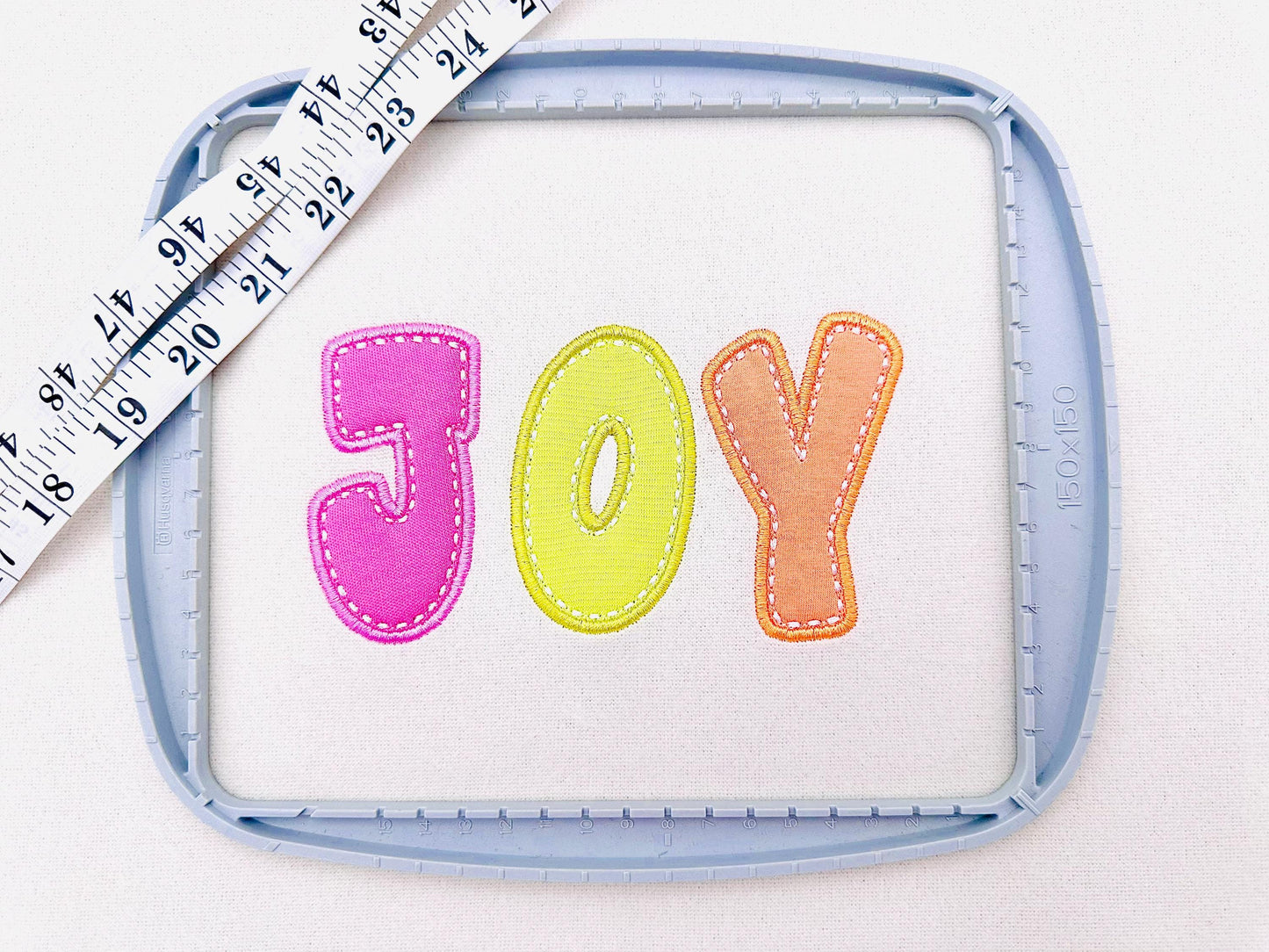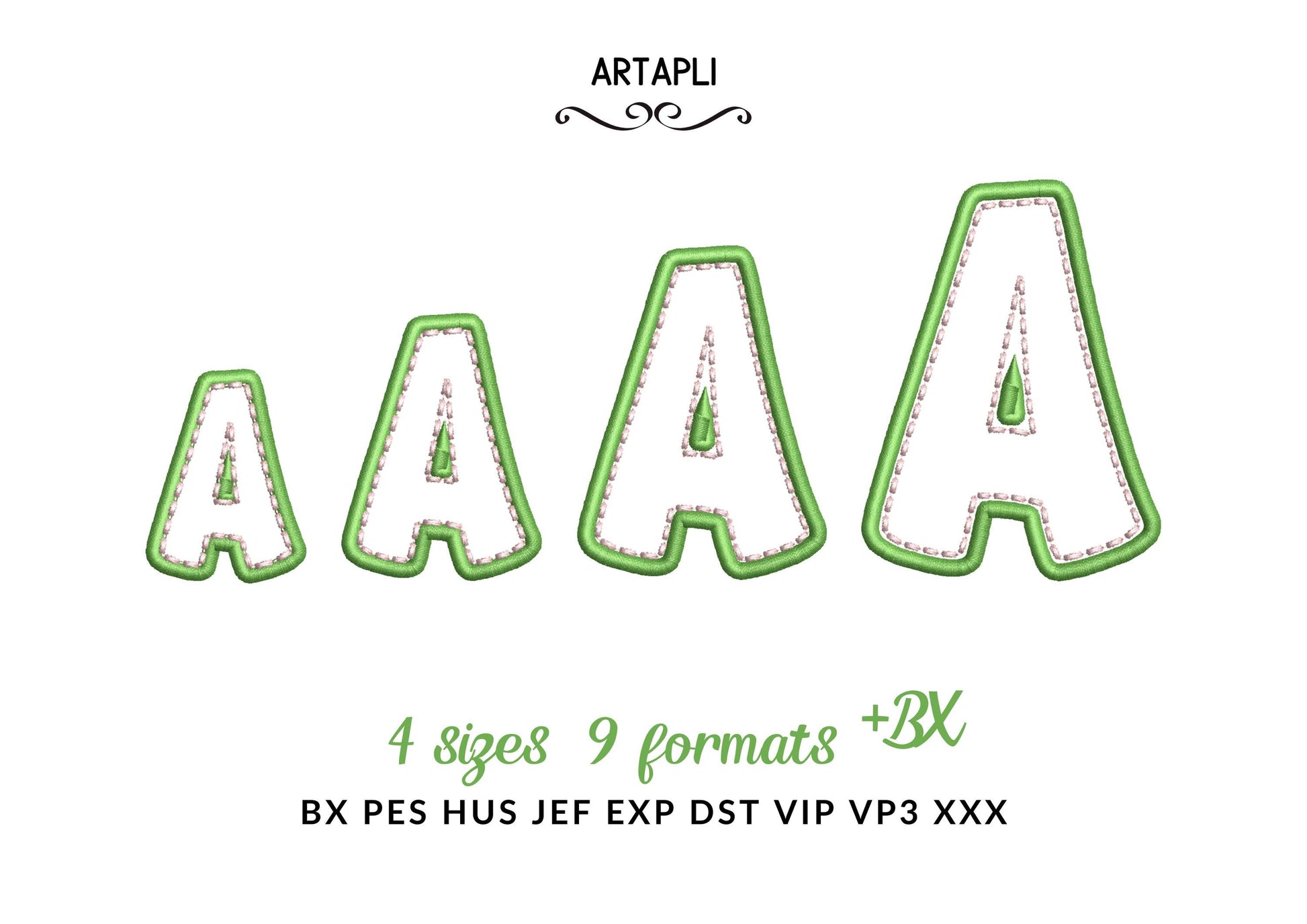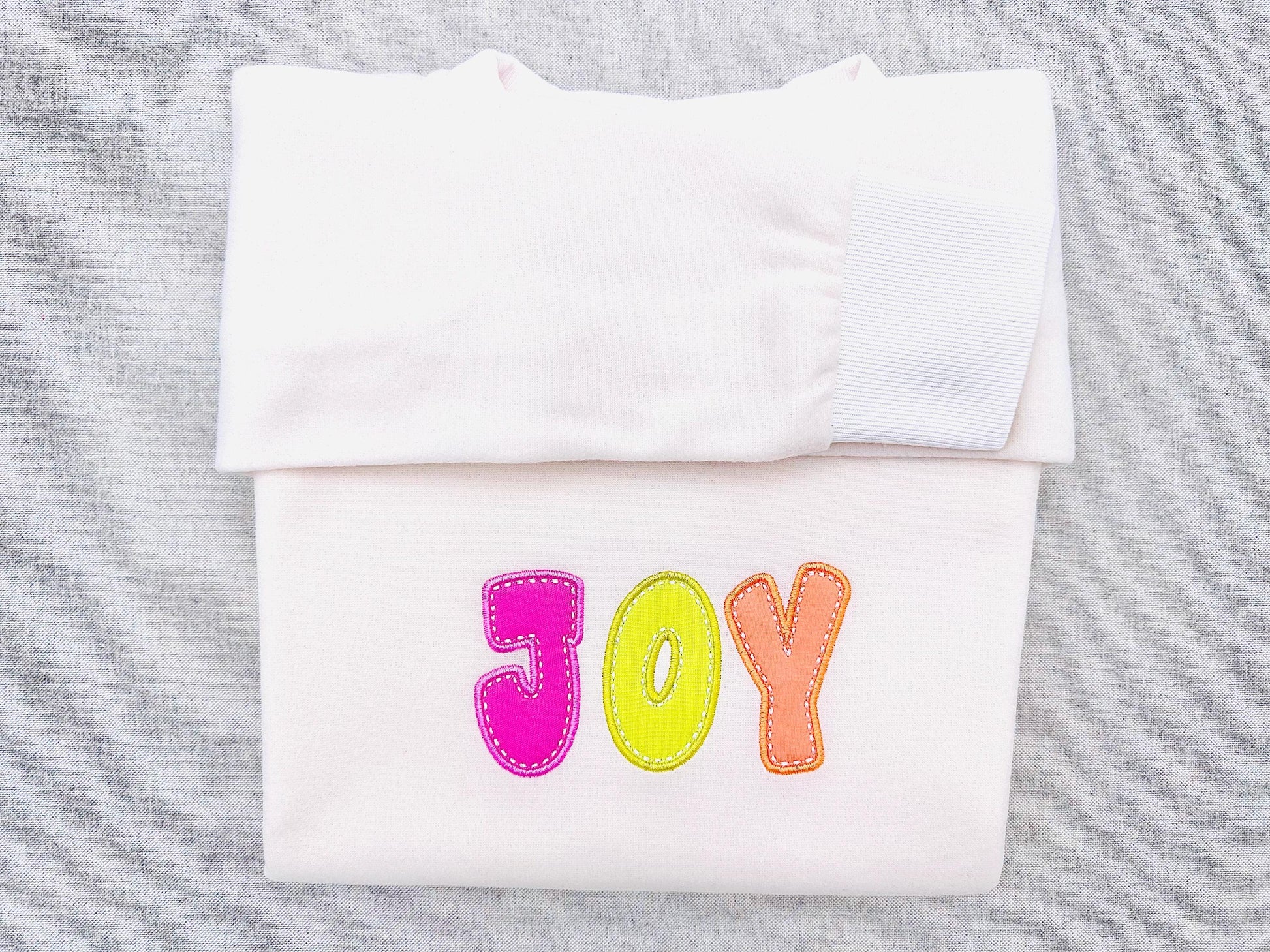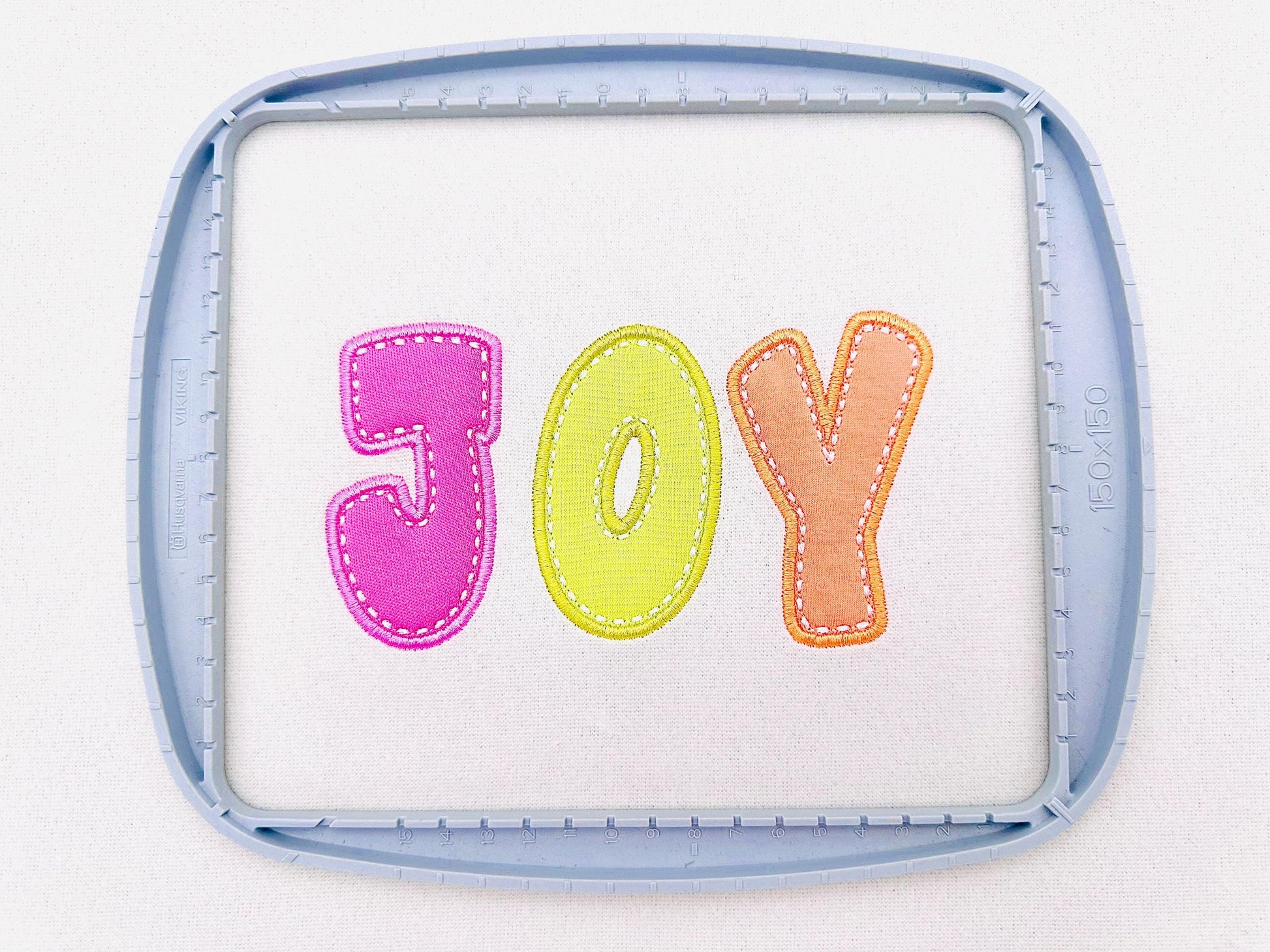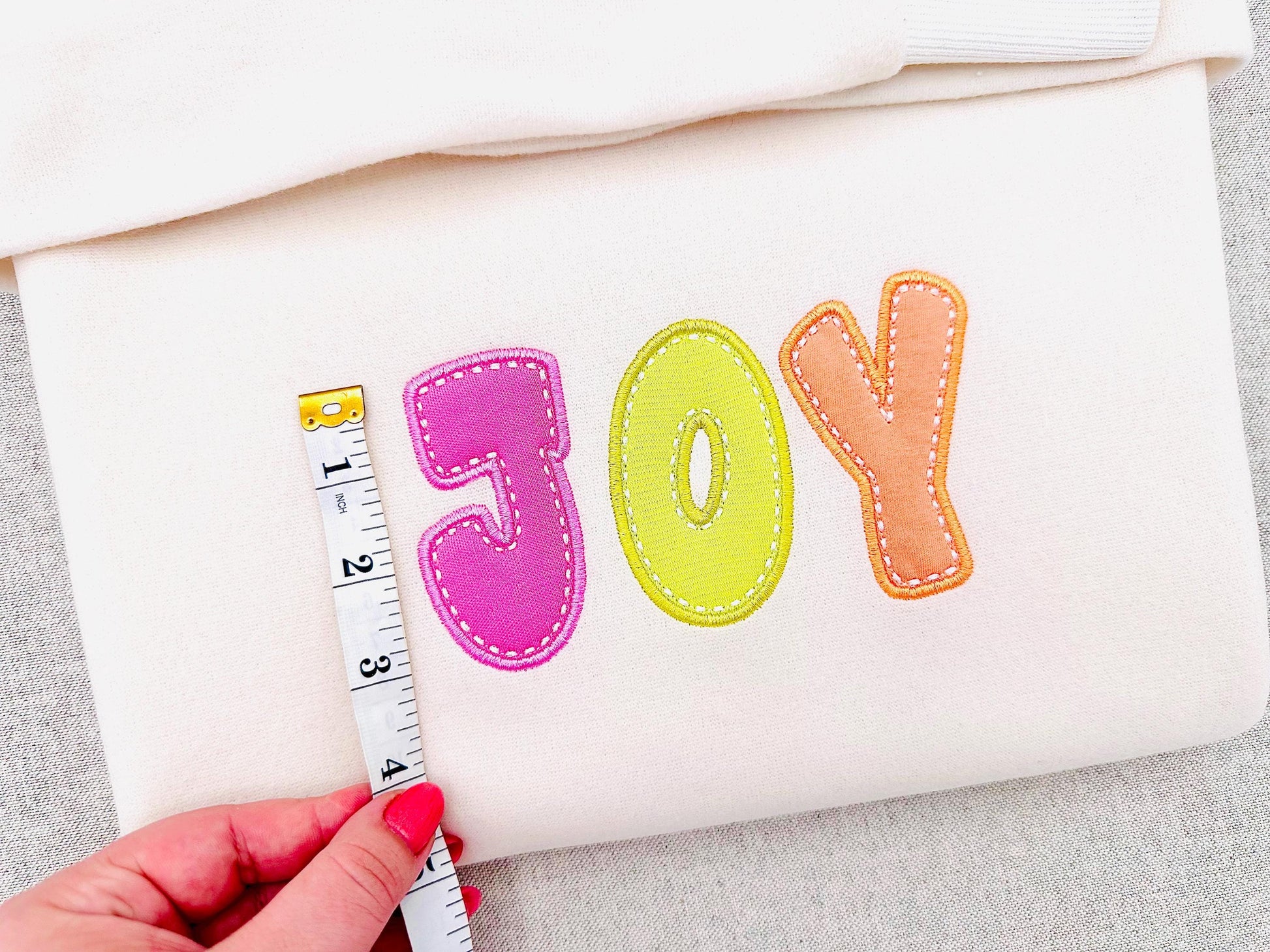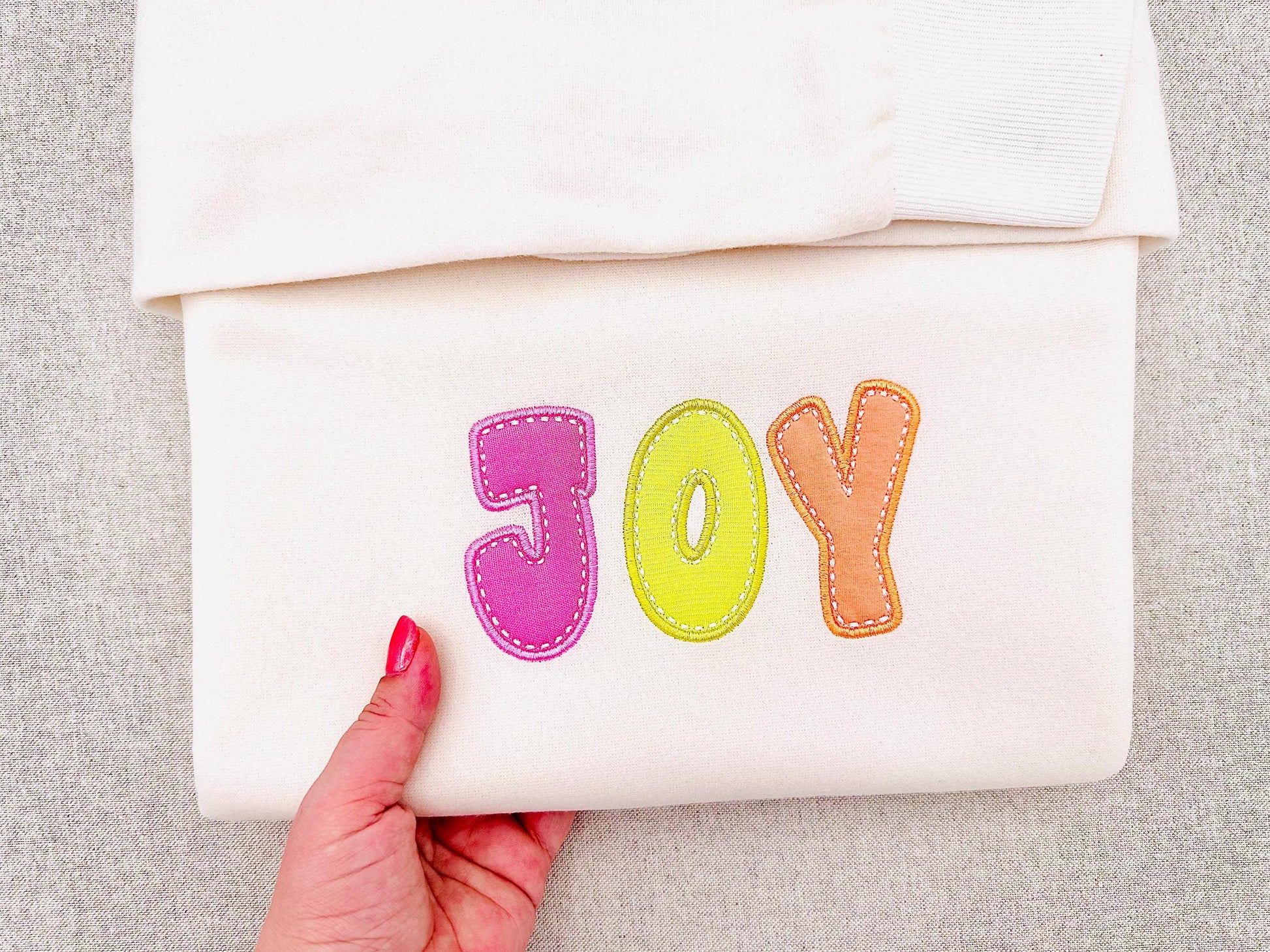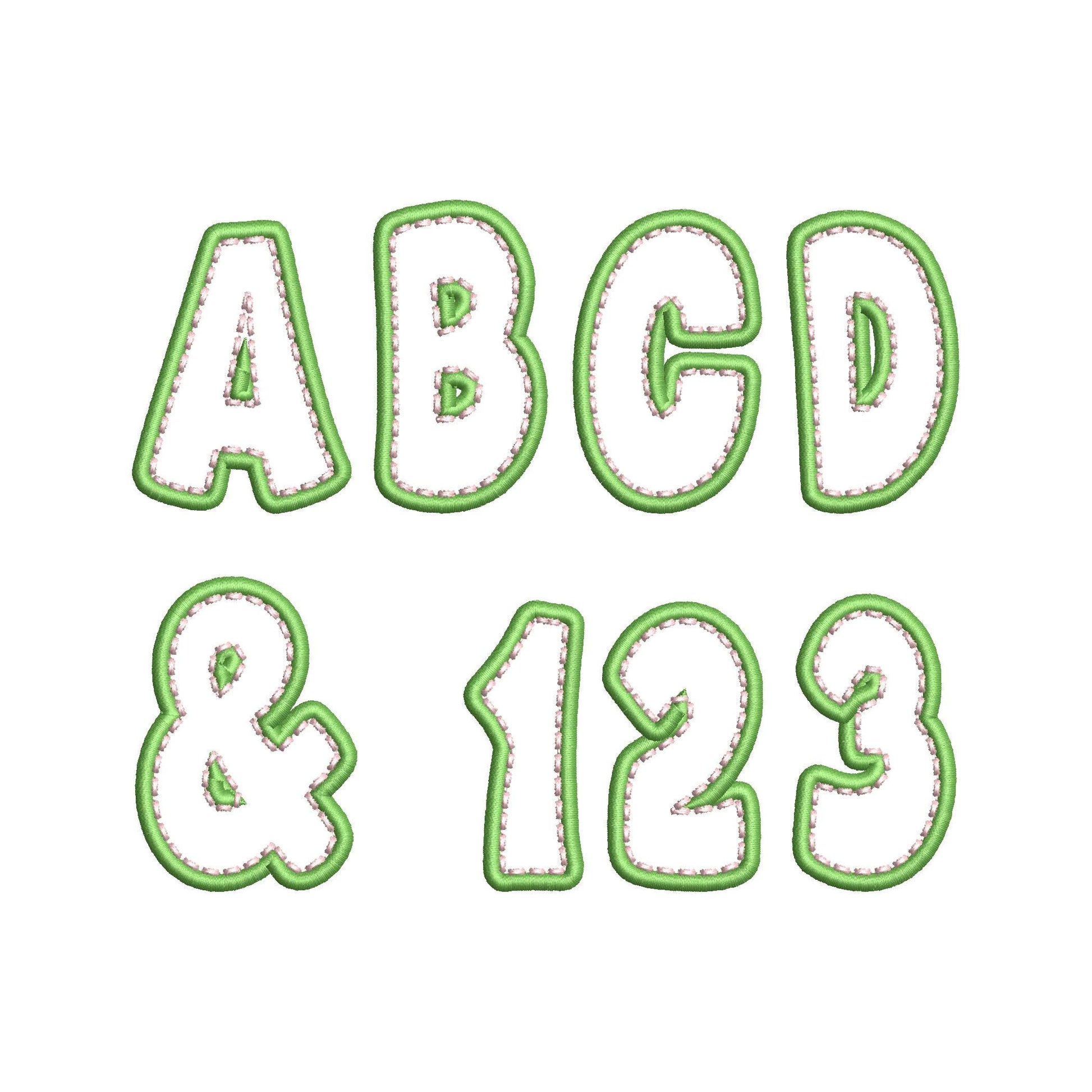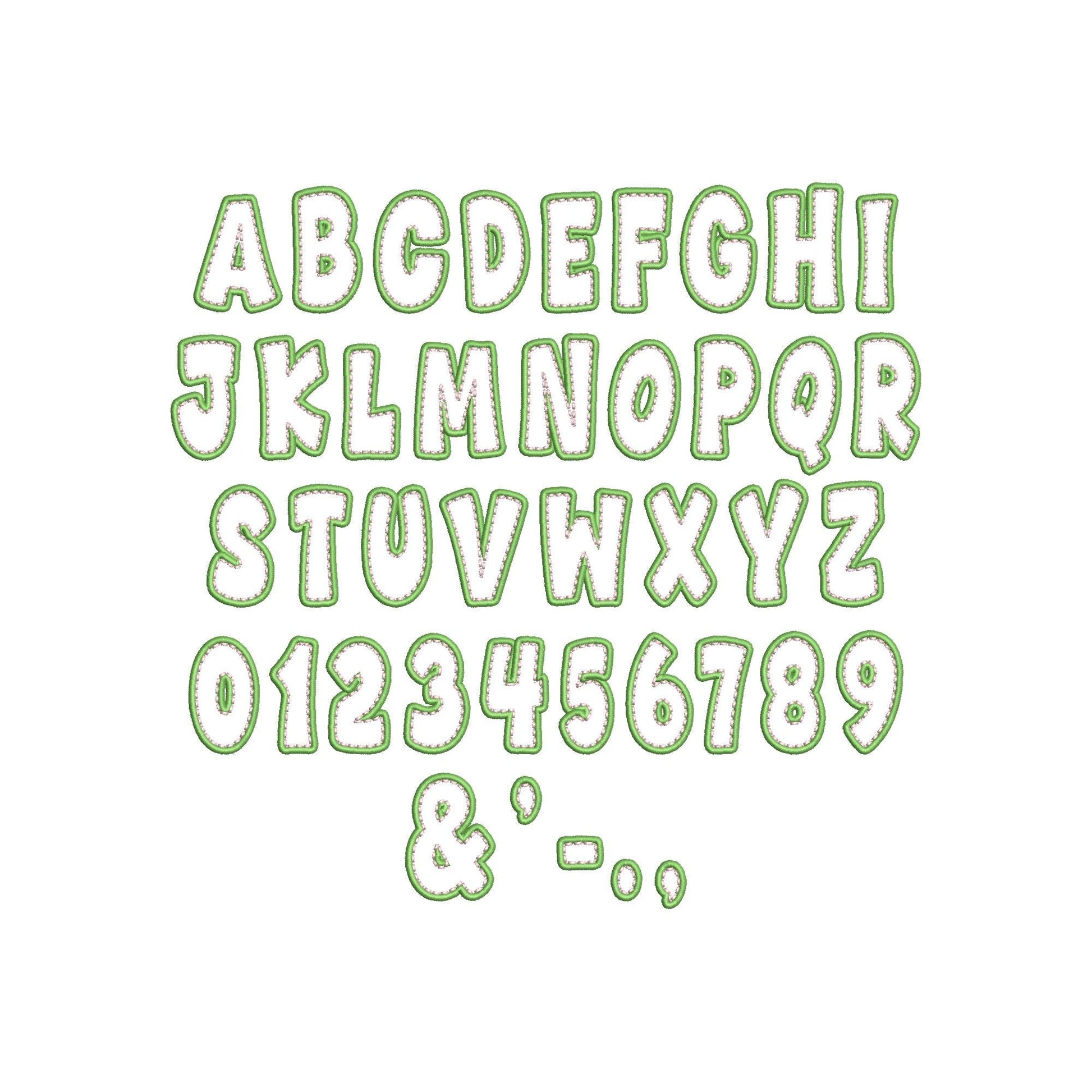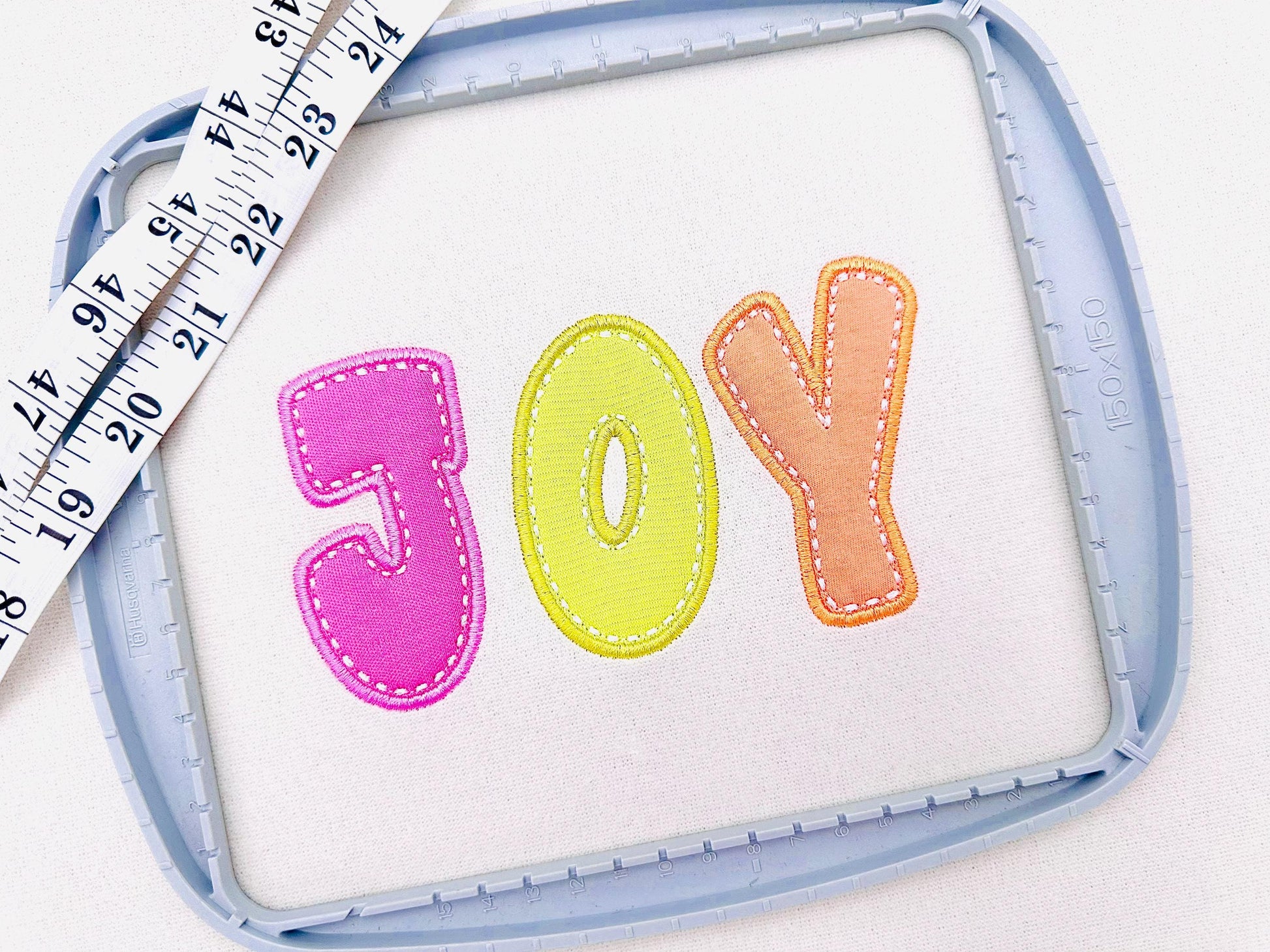
Applique Font Shane Top
The letters come in four sizes: 2, 2.5, 3.1 and 3.7 inches. Includes uppercase letters A-Z, numbers 0-9 and punctuation.
- Shane Top applique font: uppercase letters A-Z, numbers 0-9 and punctuation
- 4 letter sizes, 2 to 3.7 in